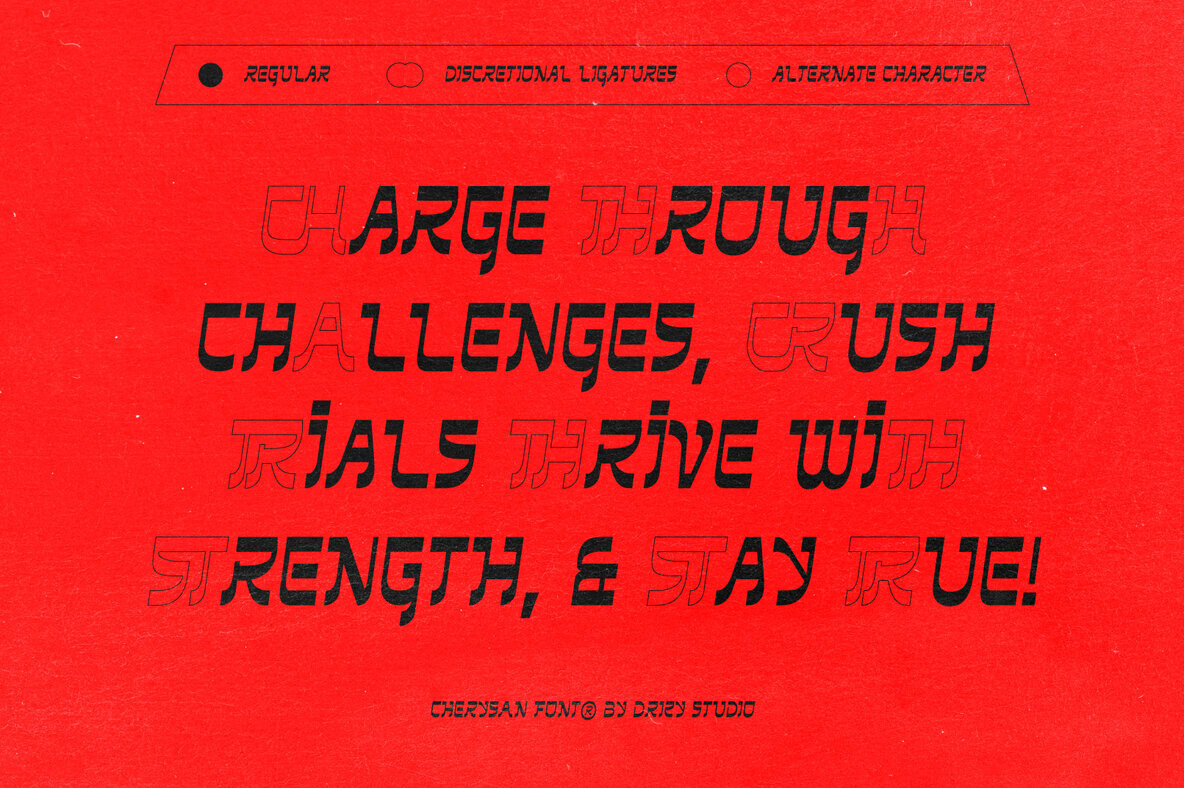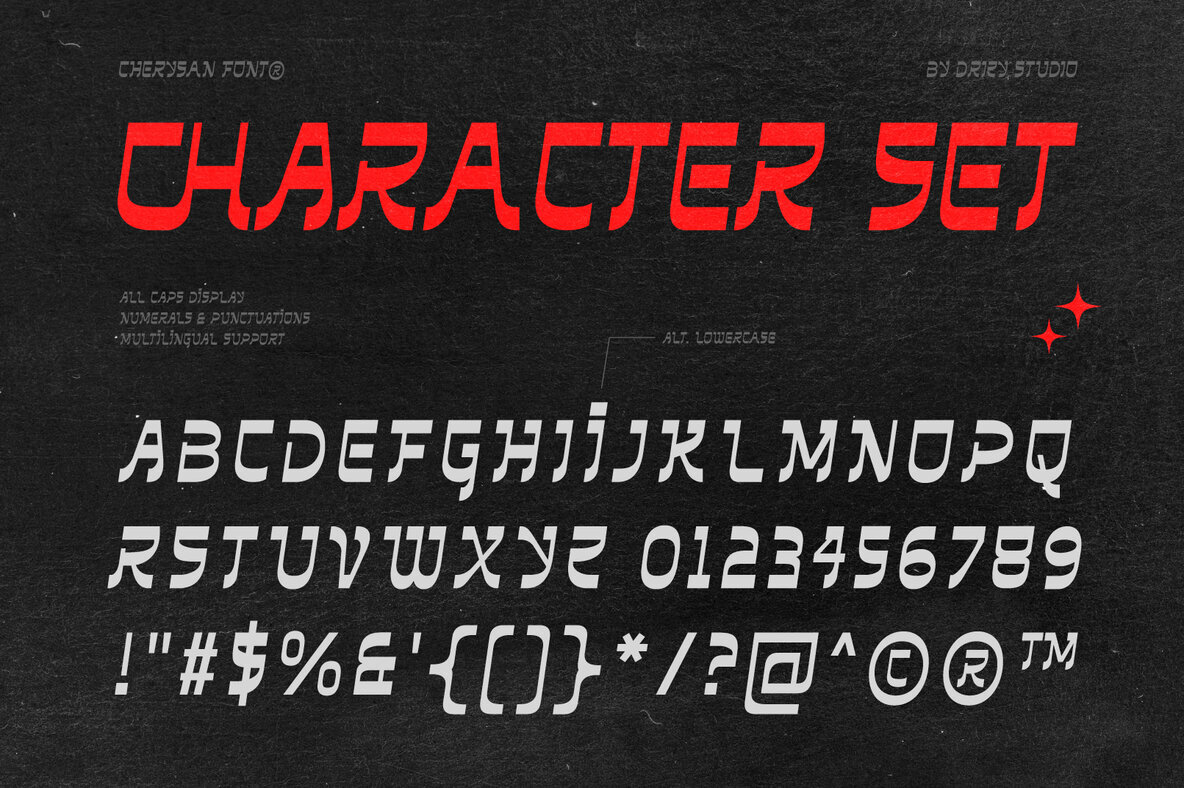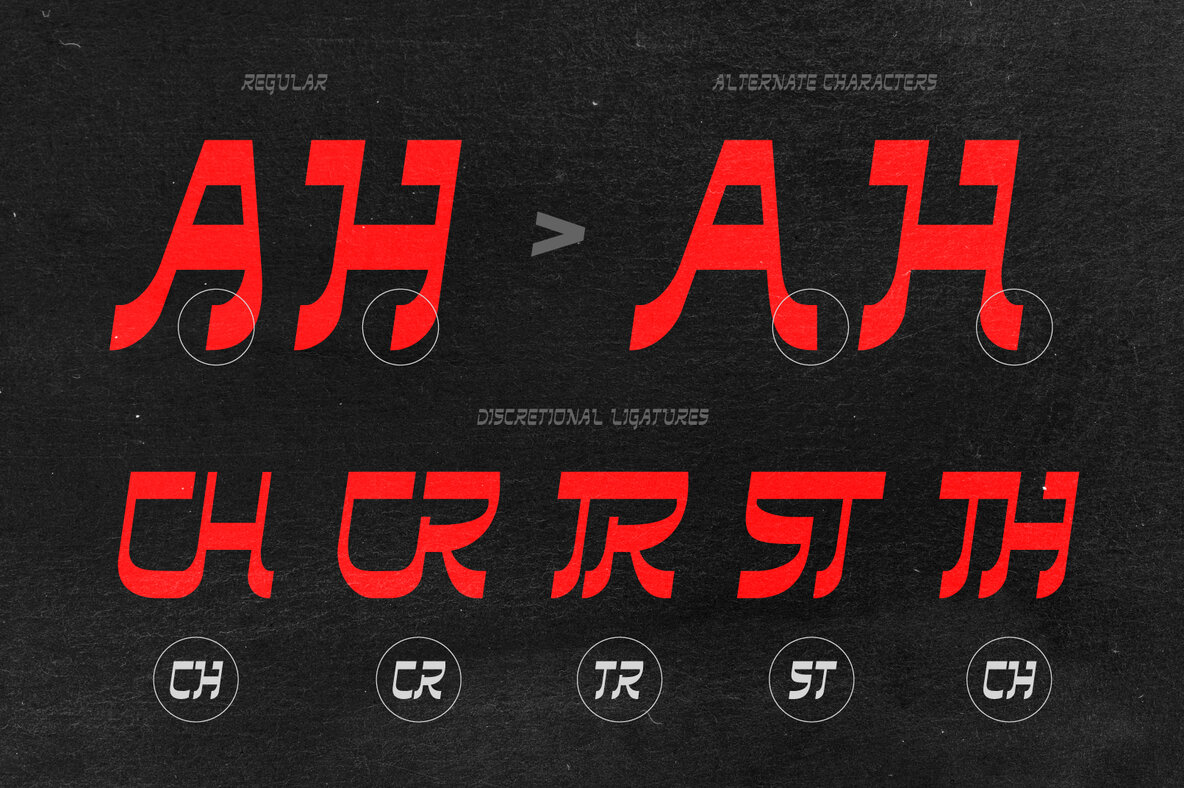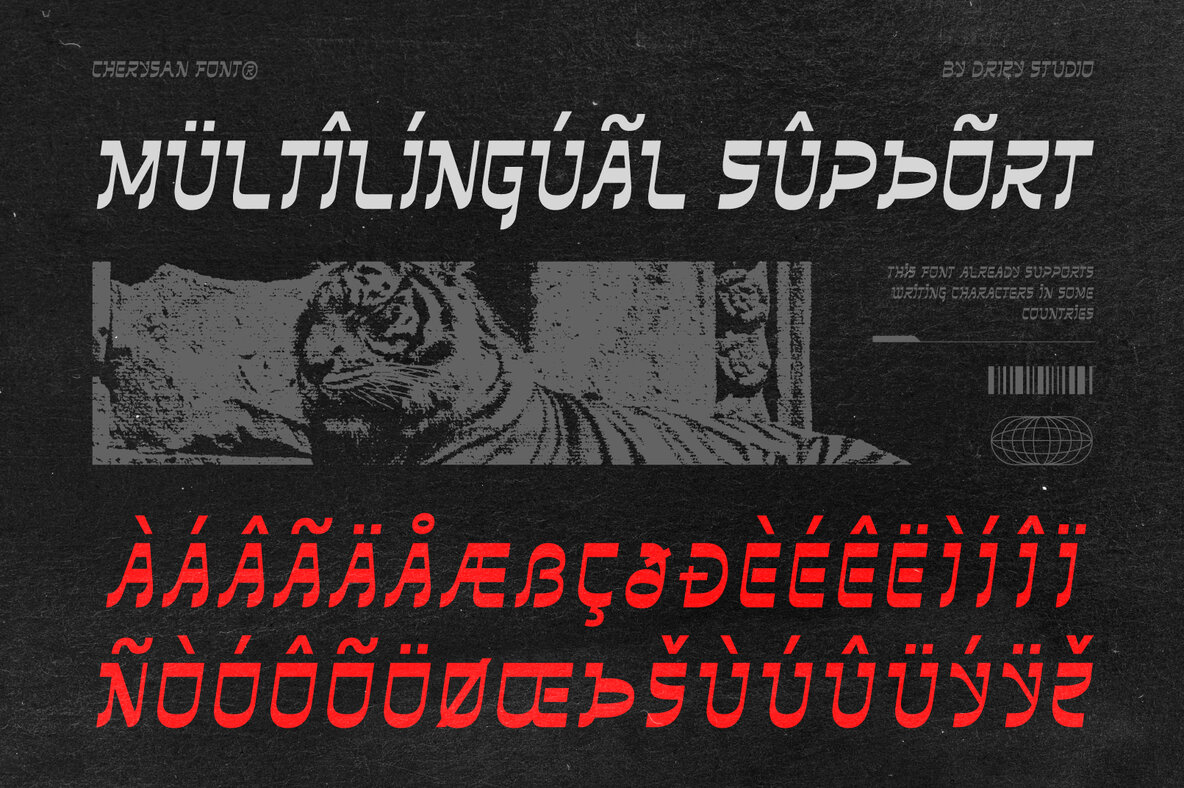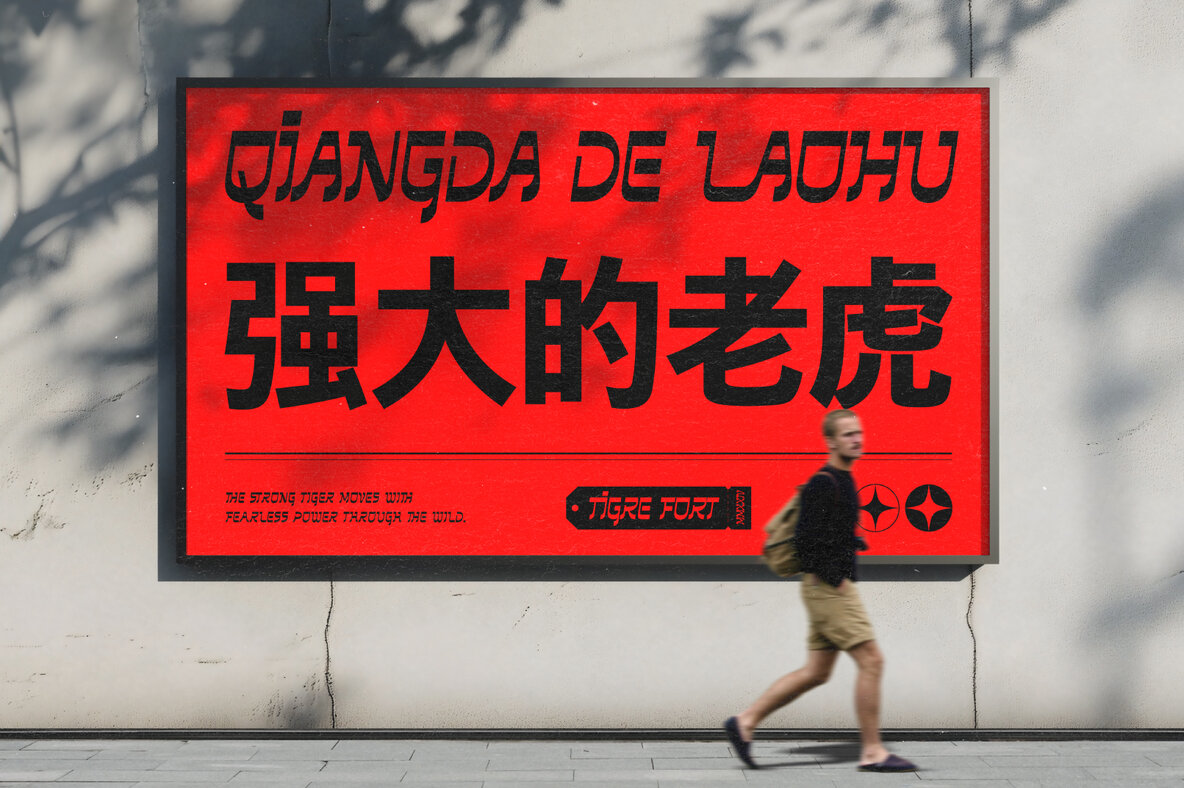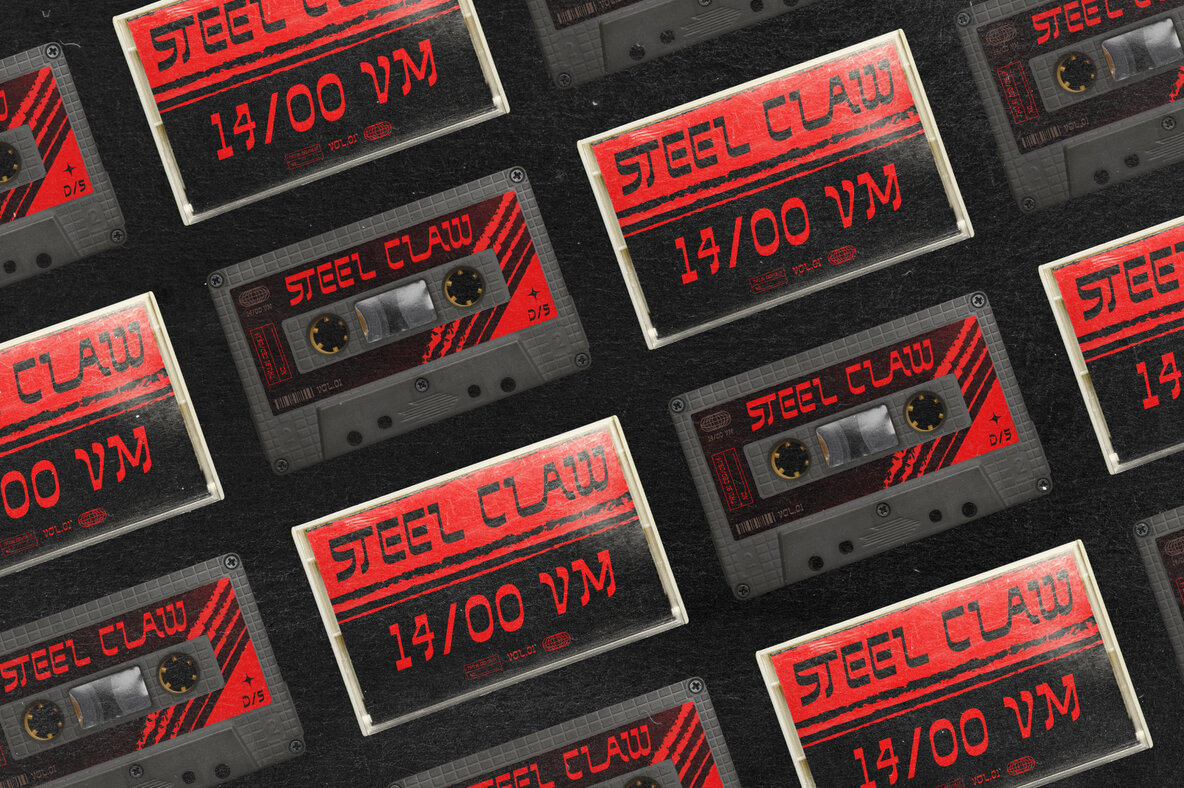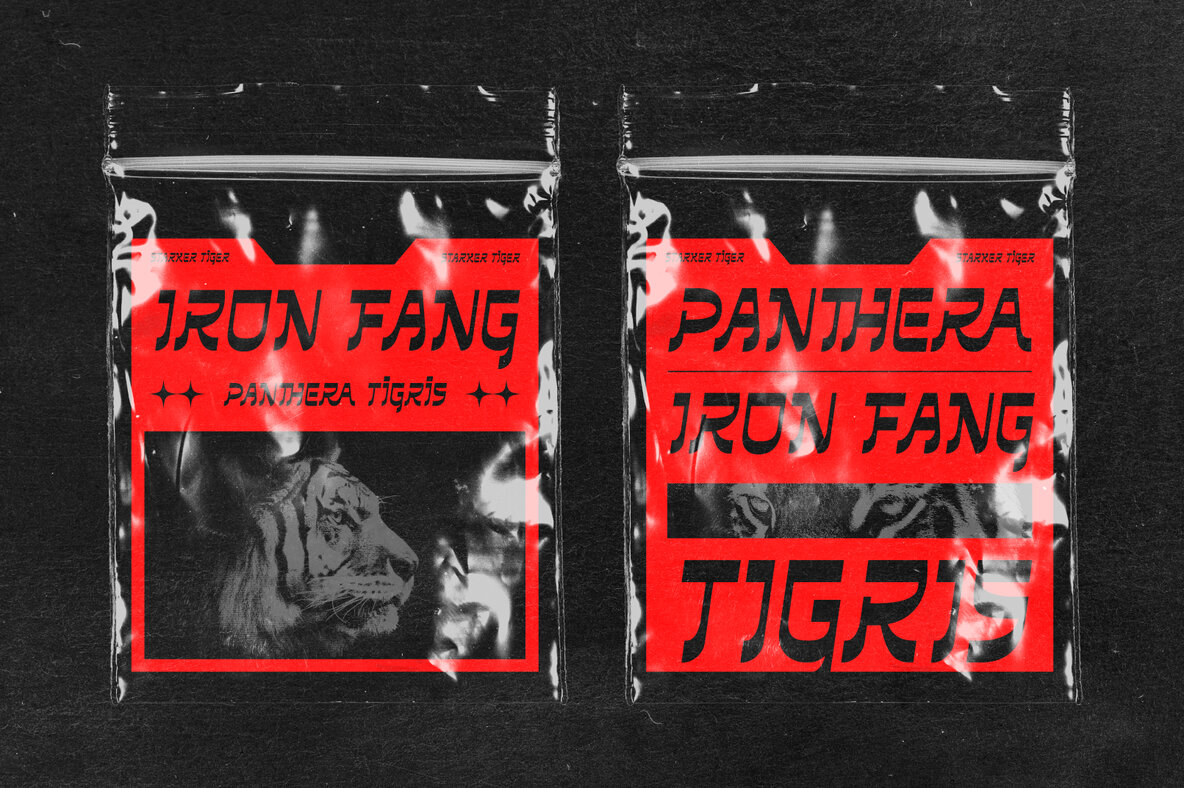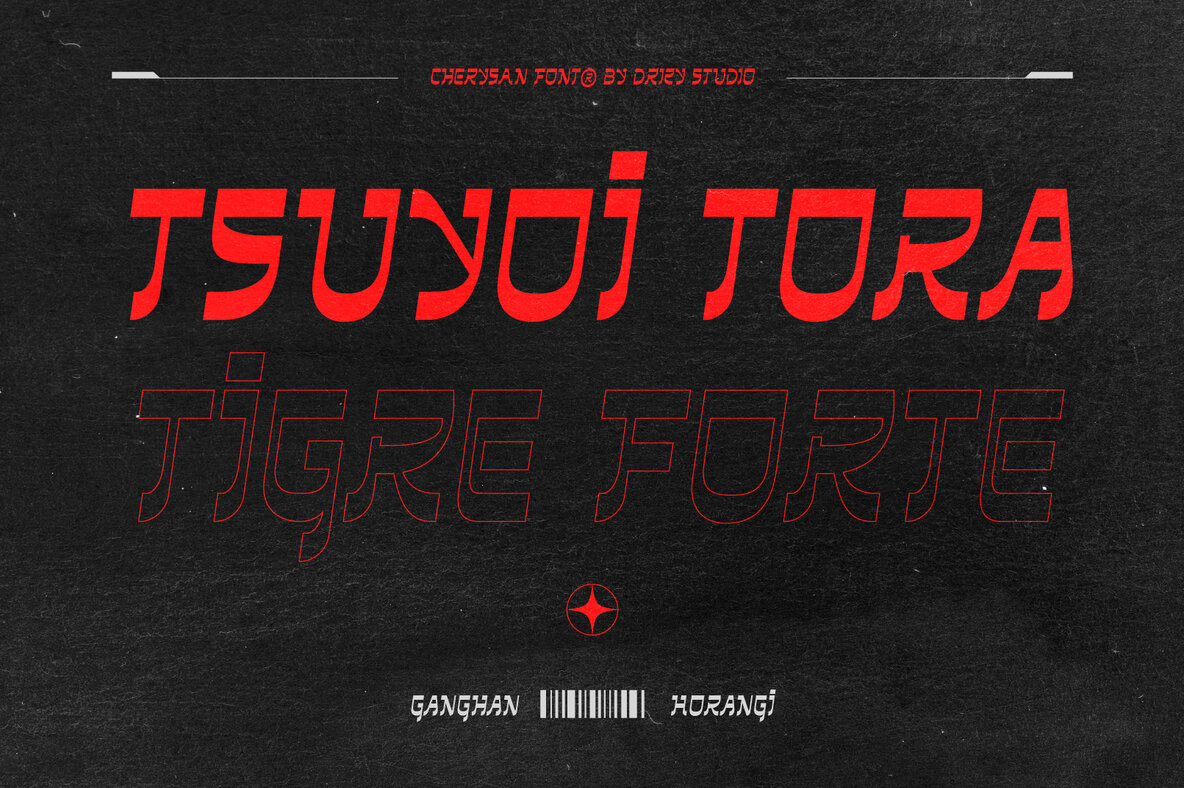
Cherysan Font
Cherysan Regular
Cherysan is an experimental reverse contrast font that redefines traditional typeface norms with its bold and daring design. Its dark, futuristic aesthetic is a standout feature, making this font an excellent choice for the music industry. The unconventional strokes and striking character shapes of Cherysan create a captivating visual rhythm, perfect for projects like album covers, concert posters, and avant-garde branding.
Ideal for designing visual identities for techno artists or creating immersive event visuals, Cherysan brings an avant-garde element to your work that demands attention. Its unique features include an all-caps character set, comprehensive punctuation, numbers, and support for multiple languages. It also offers discretionary ligatures to enhance design flexibility and creativity. Cherysan is the ideal choice for those looking to push design boundaries with a distinctive and eye-catching typeface.